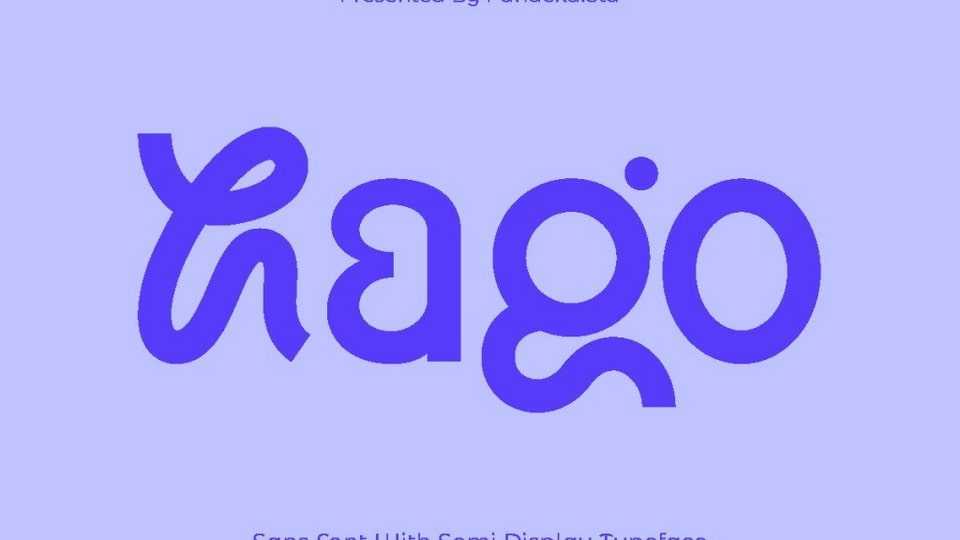
Download Hago font, a casual sans typeface that is the perfect combination of strength and play with a stunning, strong uppercase and a more playful loopy characters.